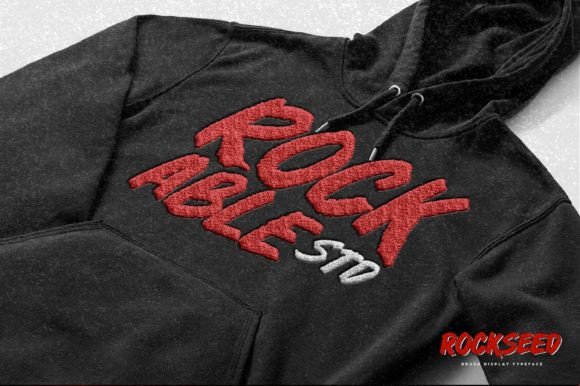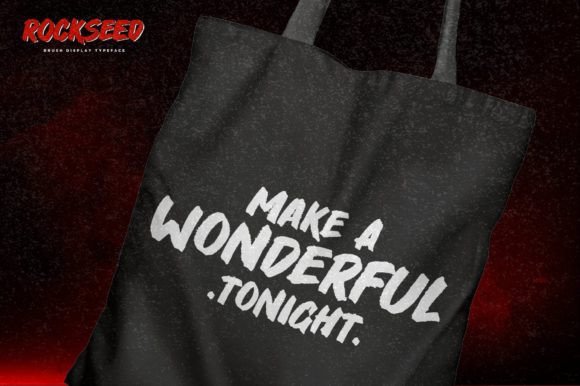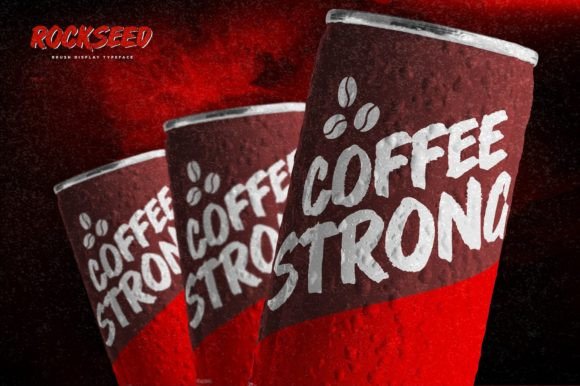
Rockseed Font: A Bold Brush Display Font for Creative Logo Design
About the Rockseed Font
Make a bold statement with Rockseed Font, a powerful and memorable font. Rockseed is a unique, brush-style display font.
Add it confidently to your projects, and you will love the results.
Rockseed’s bold, expressive brush strokes make it ideal for headlines, short impactful statements, and branding elements where a strong visual presence is needed. It works exceptionally well in posters, packaging for premium products, and even social media graphics demanding attention. However, its highly textured nature makes it unsuitable for body text or UI elements requiring high readability.
Consider pairing Rockseed with a clean sans-serif like Montserrat for a modern contrast, or a classic serif such as Garamond for a sophisticated balance. A geometric sans-serif like Futura could also provide a striking juxtaposition, depending on the desired aesthetic.
Rockseed projects a confident, slightly rebellious personality, best suited for brands aiming for a unique, memorable image. Its energetic character is perfect for conveying a sense of dynamism and creativity.
Rockseed Font Usage Examples
Rockseed Font Example